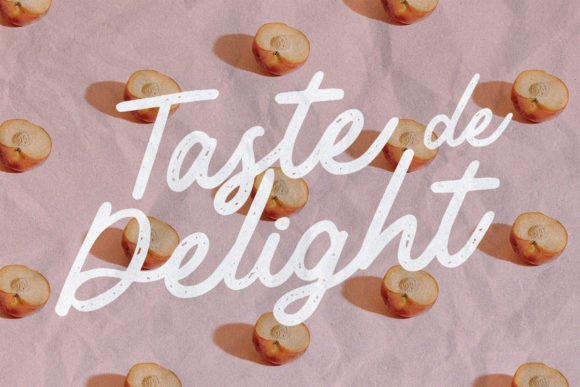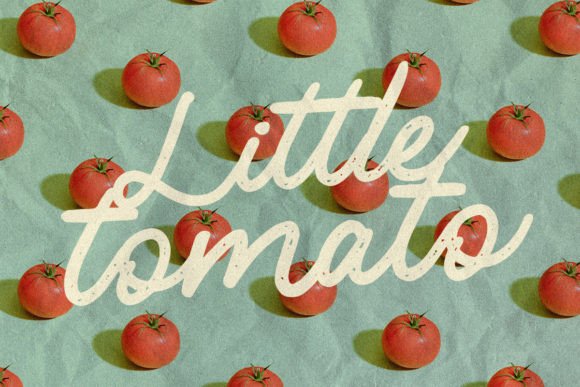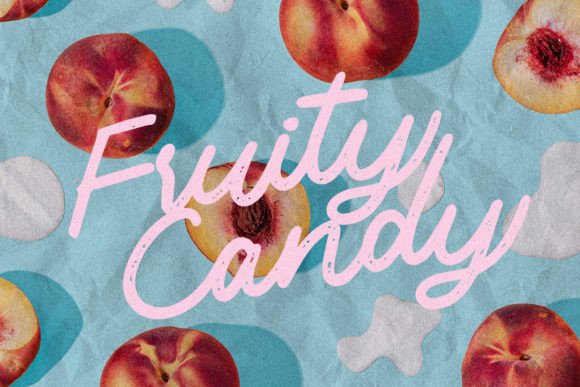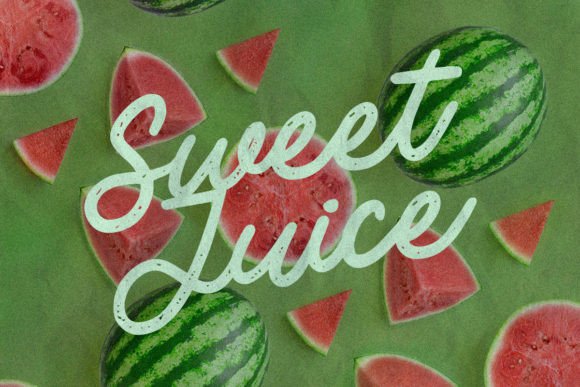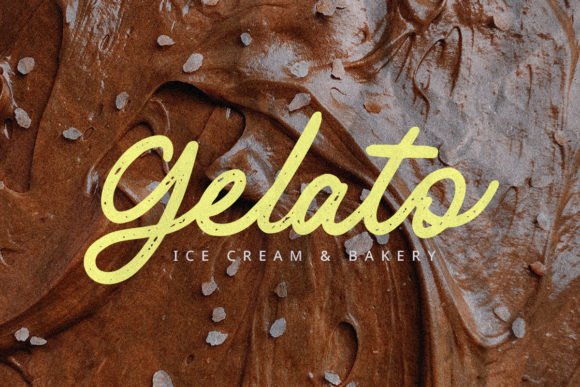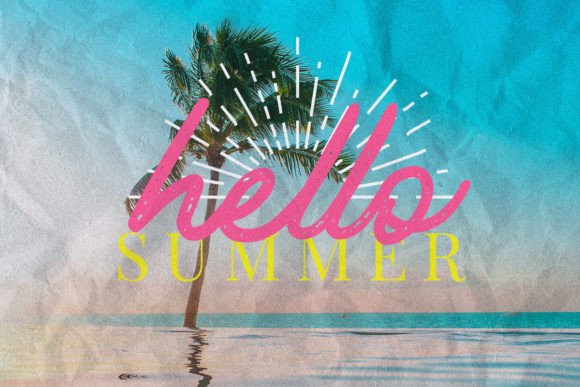
Introduction to Lagerta Font
Lagerta is a bold monoline script with a vintage texture inside the shape.
This font comes with a retro style for a retro design Lagerta will be perfect for logotypes, headlines, branding, signage, clothing, label, and packaging designs.
Key Features of Lagerta Font
Why Choose Lagerta Font?